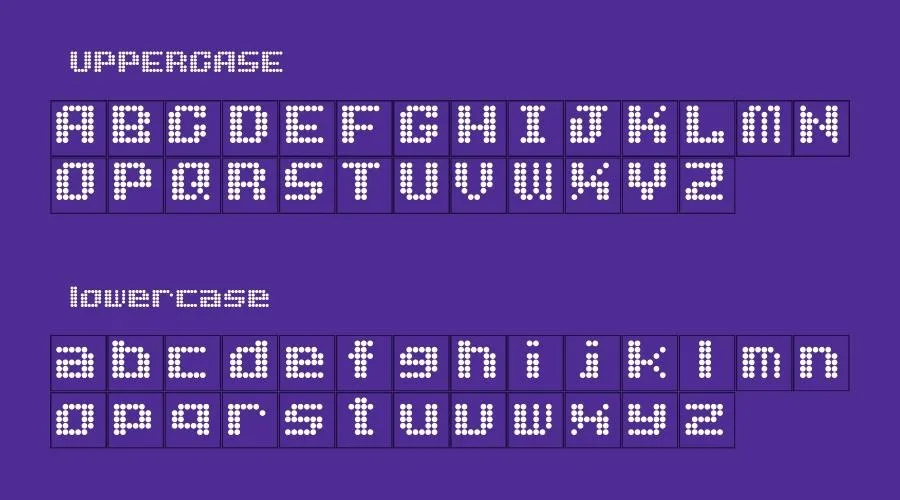
Dot Font
About Dot Font
The Dot font is a famous texture that was developed by a well-known American graphic designer named Eisuke Furukawa. This font is under the category of the techno texture family with ultra-unique characters of alphabet set.
It contains various unique weights (bold, regular, italic,) and styles. This font has an online generator tool that will help you to convert all your normal textures into stylish and modern shapes. The font includes a mixture of features that make it amazing, such as its wide range of glyphs.